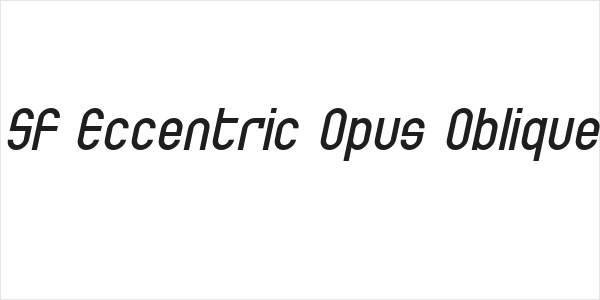
SF Eccentric Opus Oblique Font
SF Eccentric Opus Oblique Description
This font features a dynamic and modern design with a distinct oblique style, giving it a sense of motion and energy. The characters are sleek and slightly condensed, with smooth curves and a consistent stroke width that enhances readability. The uppercase letters are bold and assertive, while the lowercase letters maintain a harmonious flow. The numerals are clear and well-defined, making them suitable for various applications. Special characters are included, adding versatility to the font's usage. Overall, this font exudes a contemporary and stylish vibe, perfect for projects that require a touch of sophistication and flair.
| Use Case | Headlines, Logos, Digital Media |
| Proposed Projects | Ideal for branding, advertising, headlines, and digital media projects that require a modern and energetic look. |